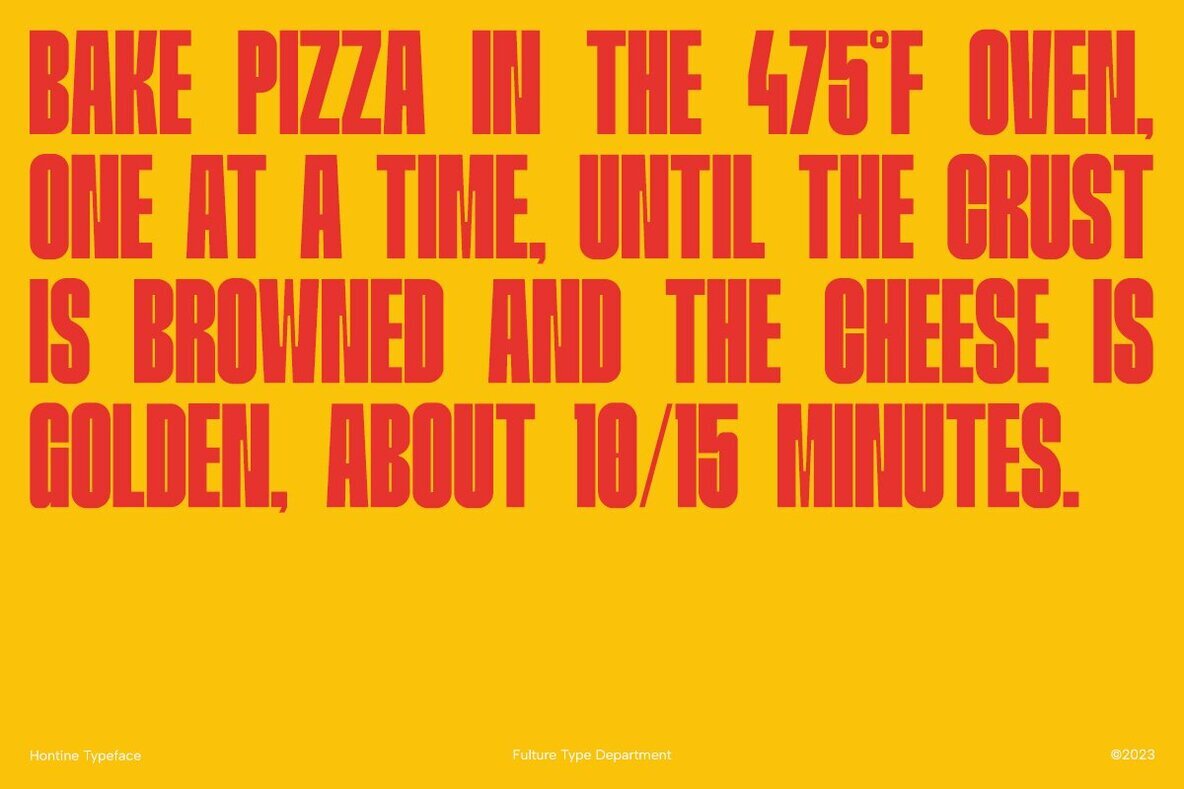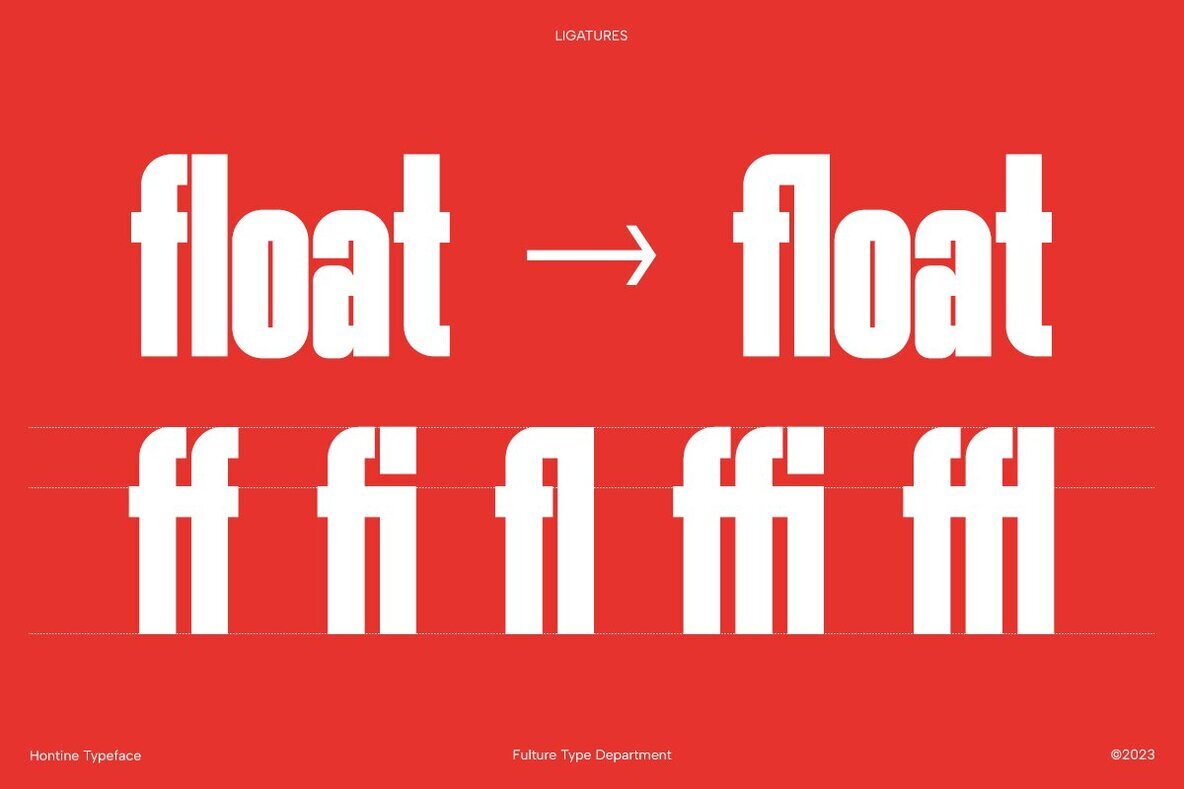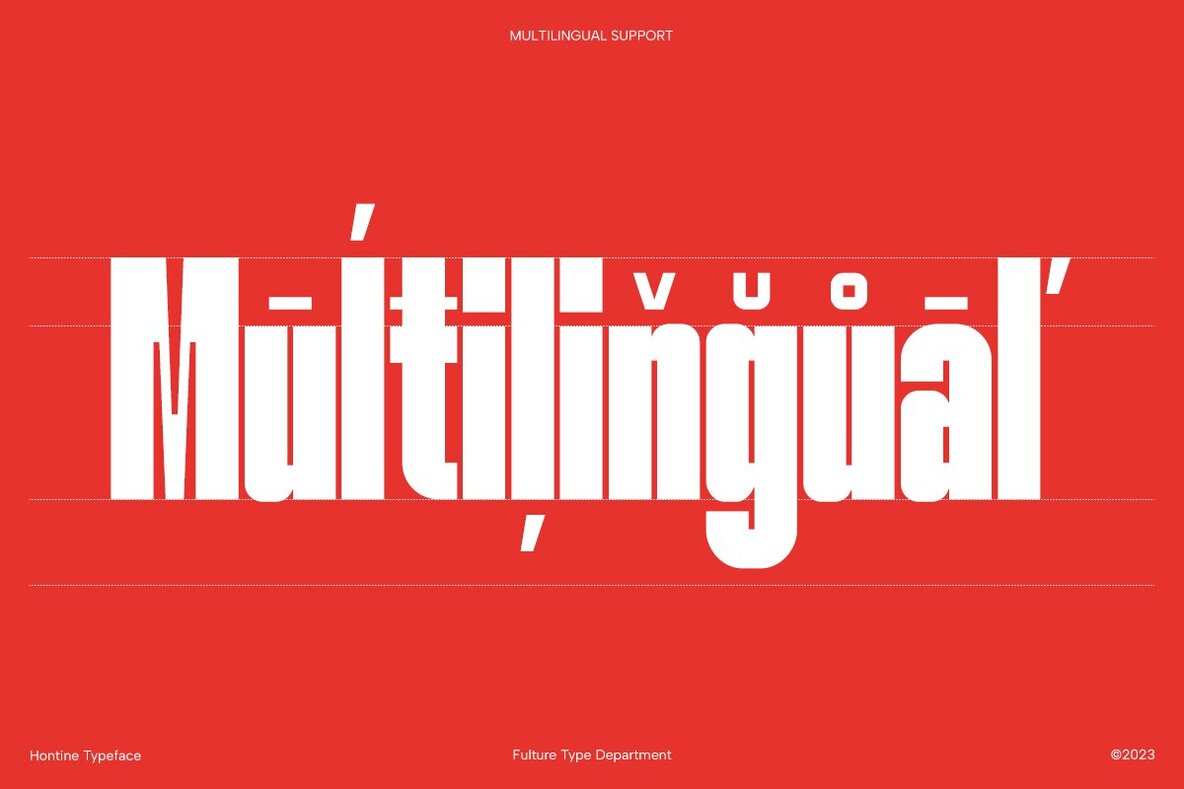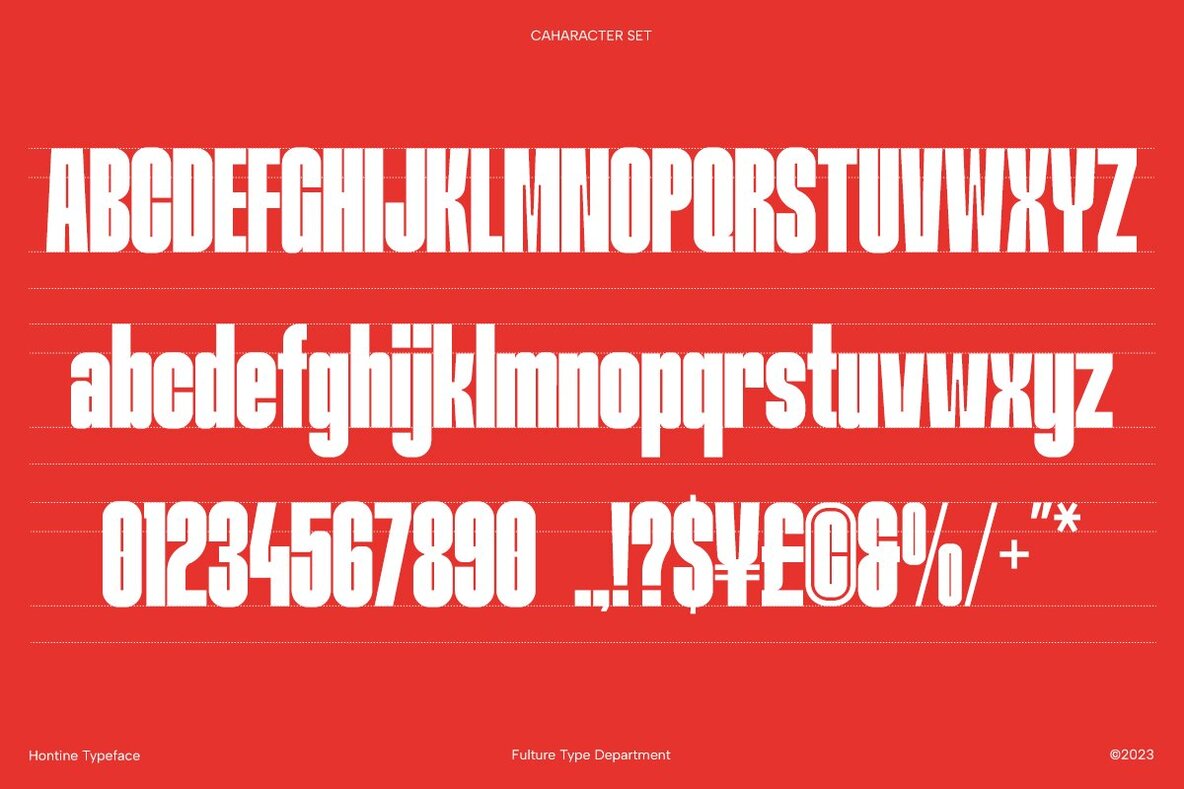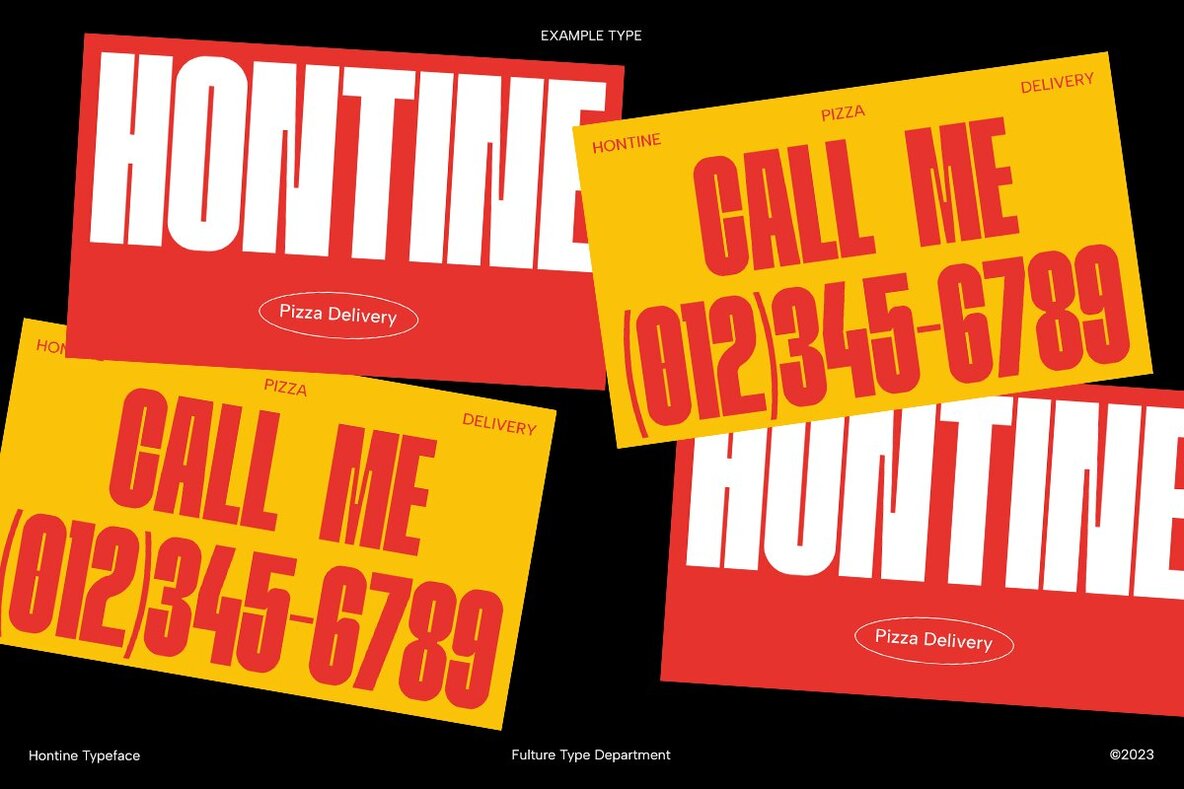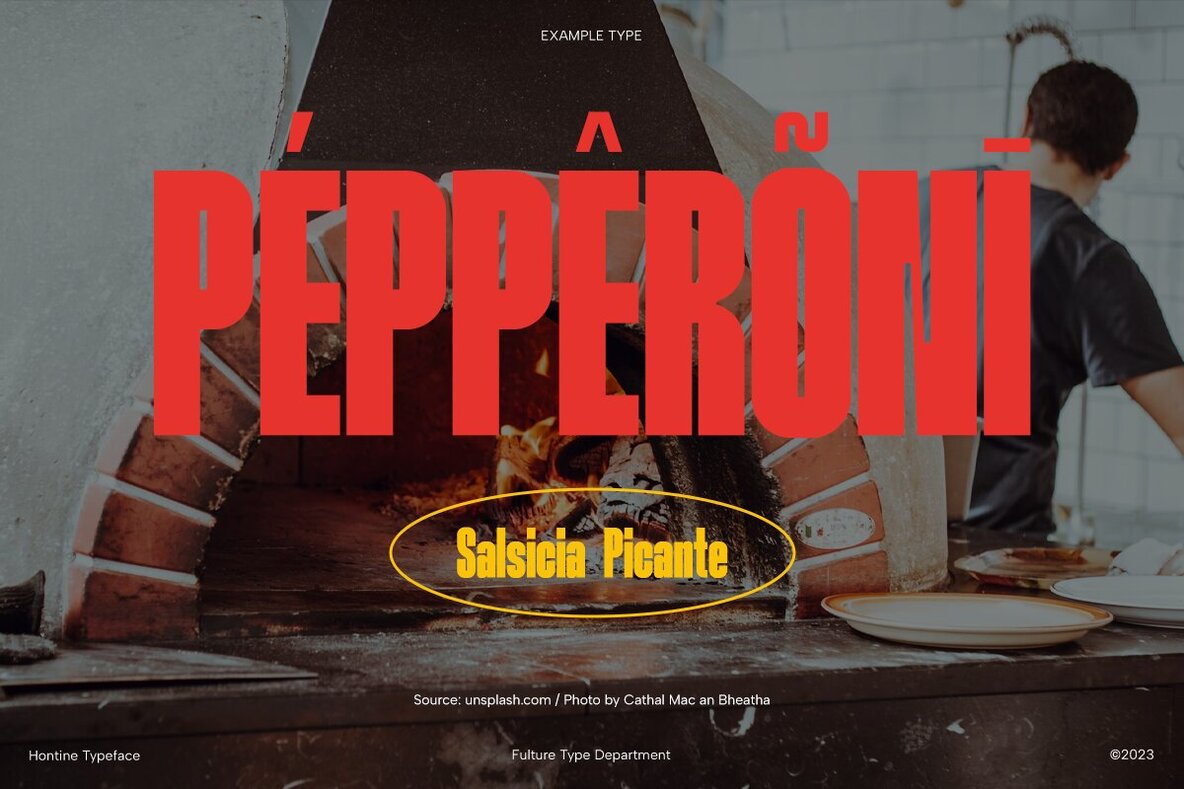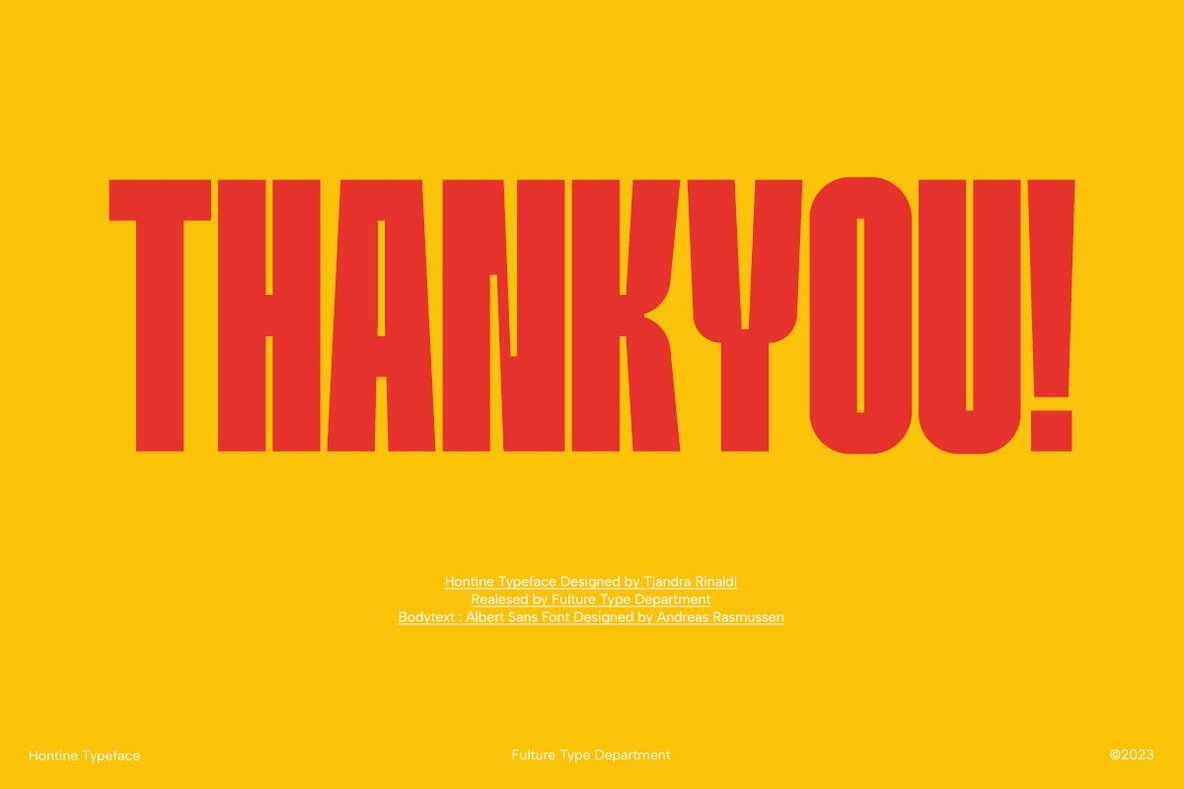
HONTINE: Bold Ultra Condensed Typeface for Display Text
HONTINE is a striking typeface designed by Tjandra Rinaldi, perfect for making a strong impression in display text. With its bold, ultra-condensed form, it’s ideal for grabbing attention in headlines and posters.
Primary Features
• Bold Design – Commands attention and adds impact to your text.
• Ultra Condensed – Maximizes space utilization without sacrificing style.
• Versatile Usage – Perfect for headlines, posters, and other display applications.